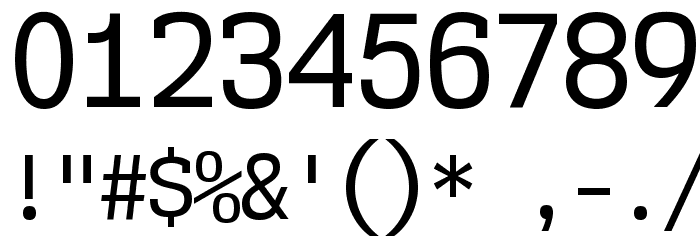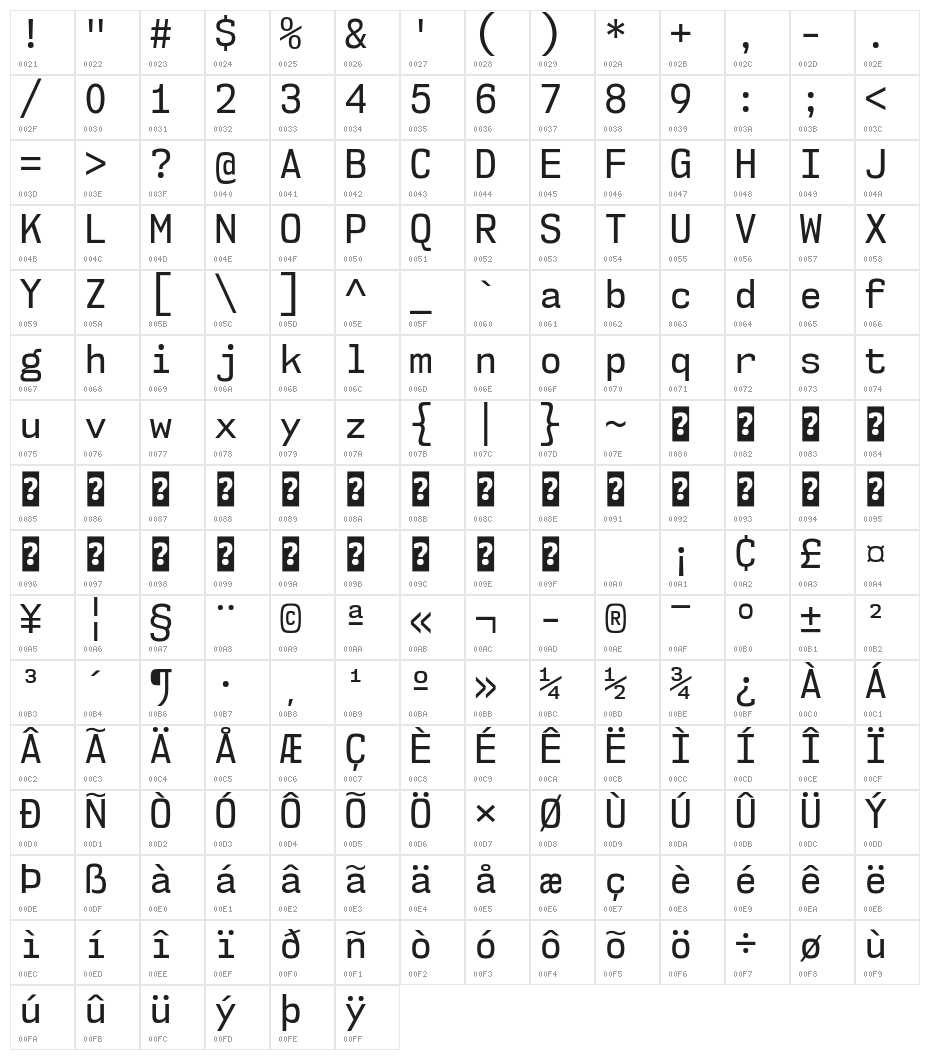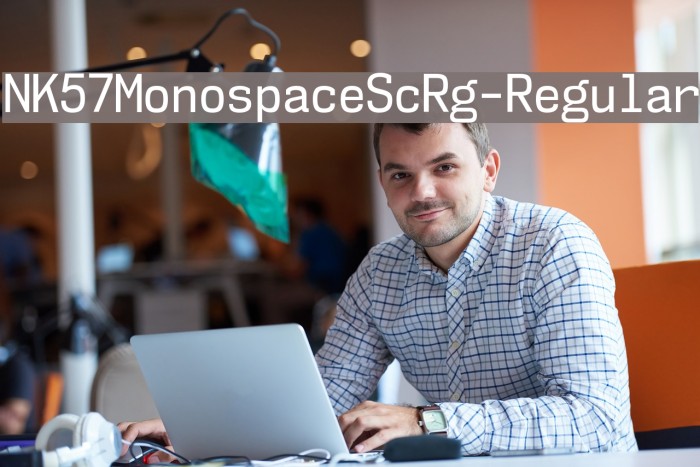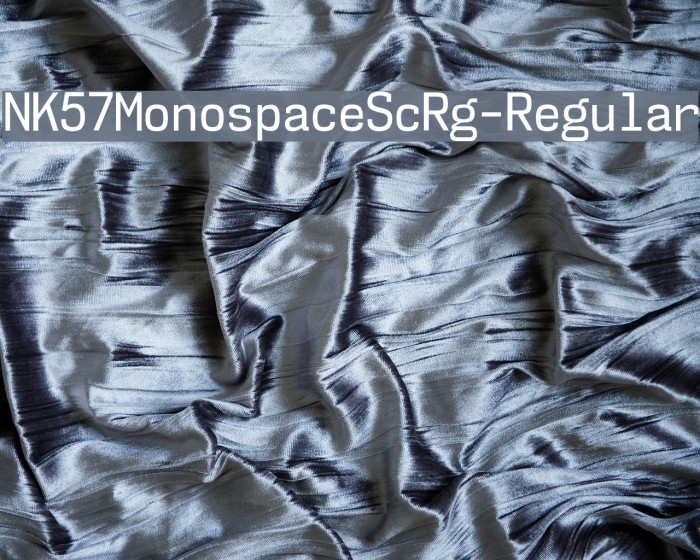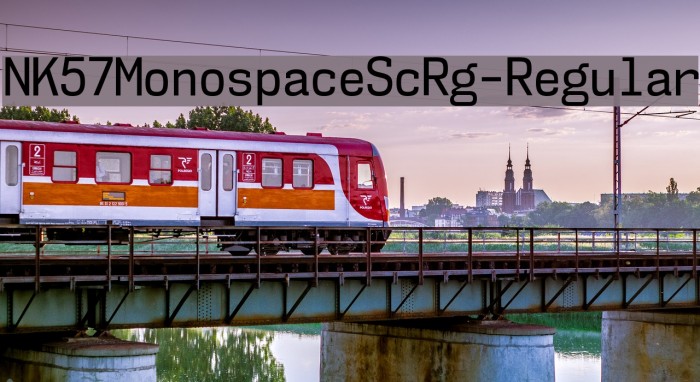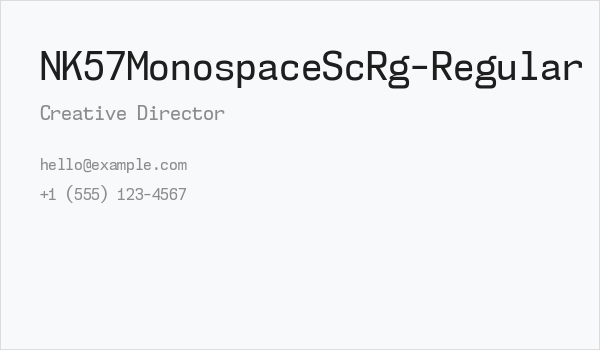
NK57MonospaceScRg-Regular Font
NK57MonospaceScRg-Regular Description
This font is a clean and modern monospaced typeface, characterized by its uniform spacing and geometric shapes. Each character is designed with precision, maintaining equal width which is ideal for coding and tabular data. The uppercase letters are bold and assertive, while the lowercase letters maintain a consistent height, offering a balanced appearance. The numerals are clear and distinct, ensuring readability. Special characters are well-defined, making this font versatile for various applications. Its simplicity and clarity make it suitable for both digital and print media.
| Use Case | Coding, Technical documentation, Data tables |
| Proposed Projects | Ideal for coding, technical documentation, and data presentation. |